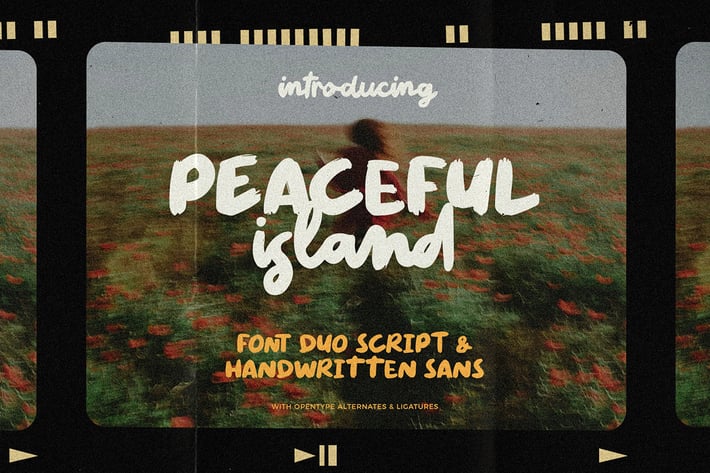
Peaceful Island - Handwritten Font Duo
Peaceful Island is a handwritten combo pairing font. It combines script and handwritten sans. This font has a retro feel, playful handwritten sans, and a casual script. This attractive combination with retro vibes is perfect for your Display Design. You can use it for logo designs, title vloggers, brand imagery, quotes, merchandise, social media posts, and more.
- Uppercase & Lowercase
- Alternates and Ligatures